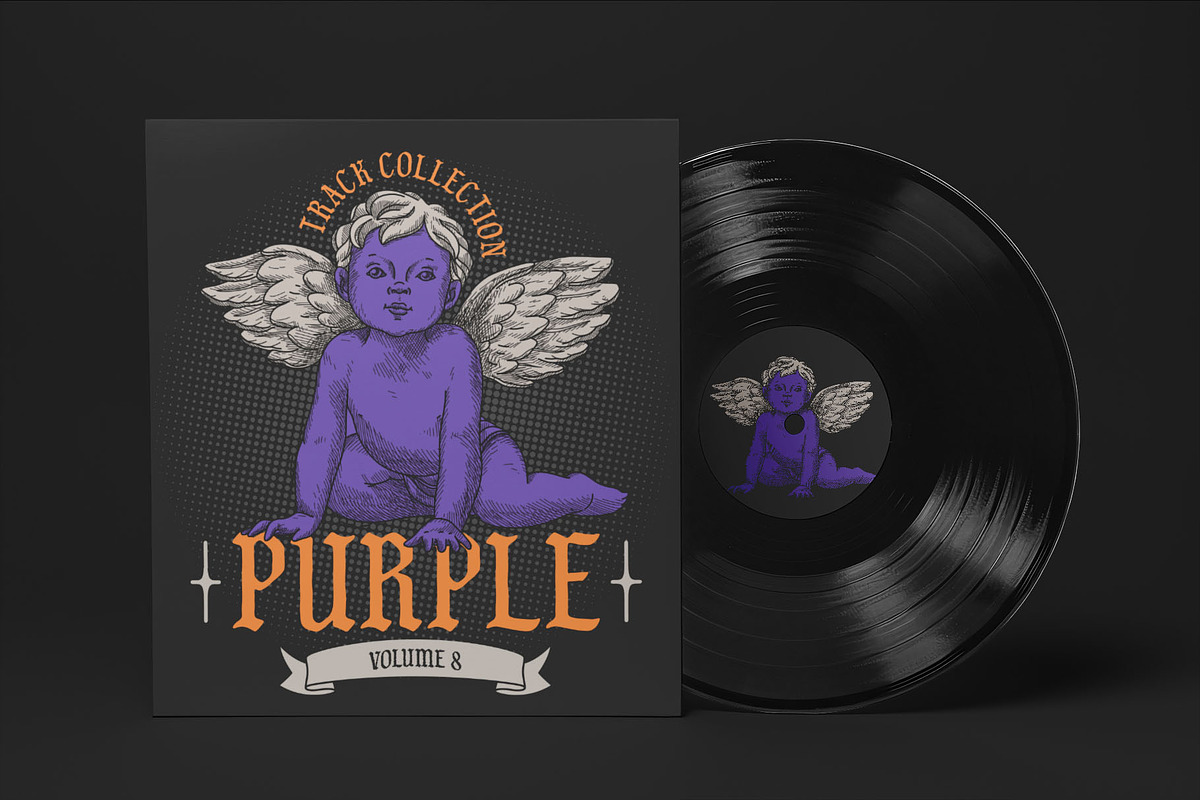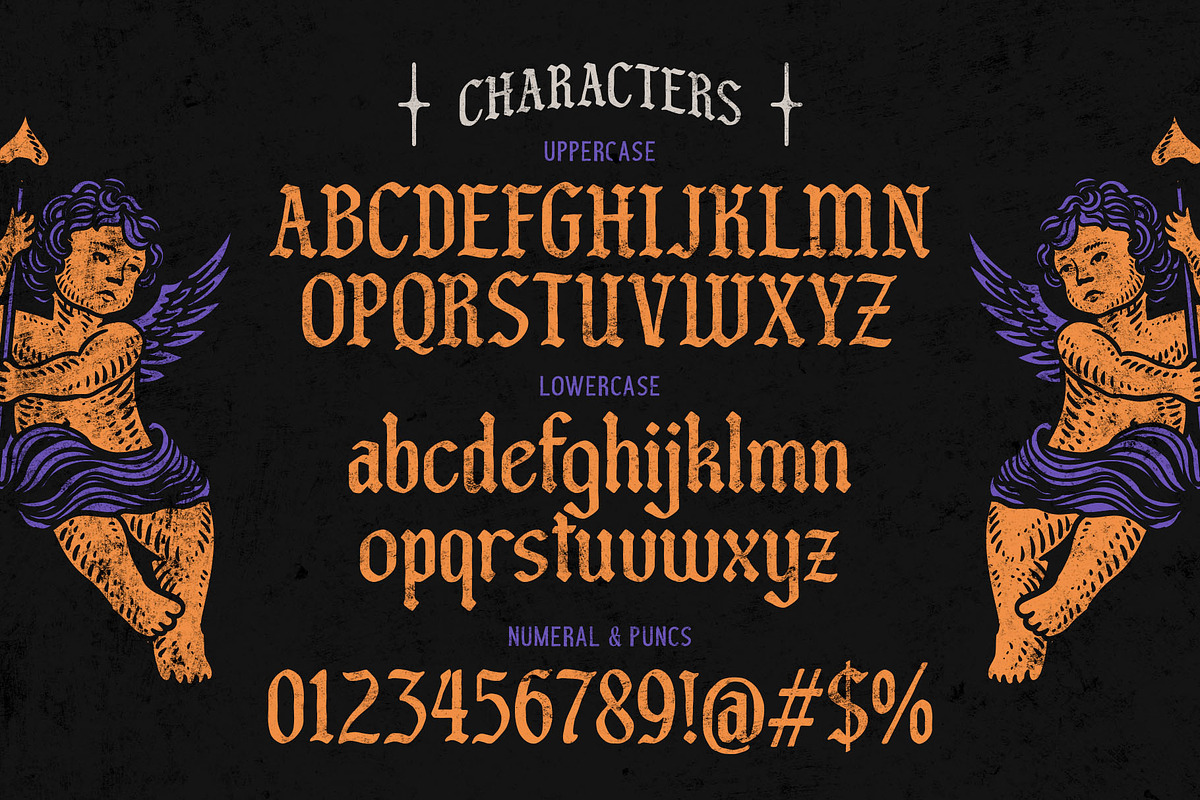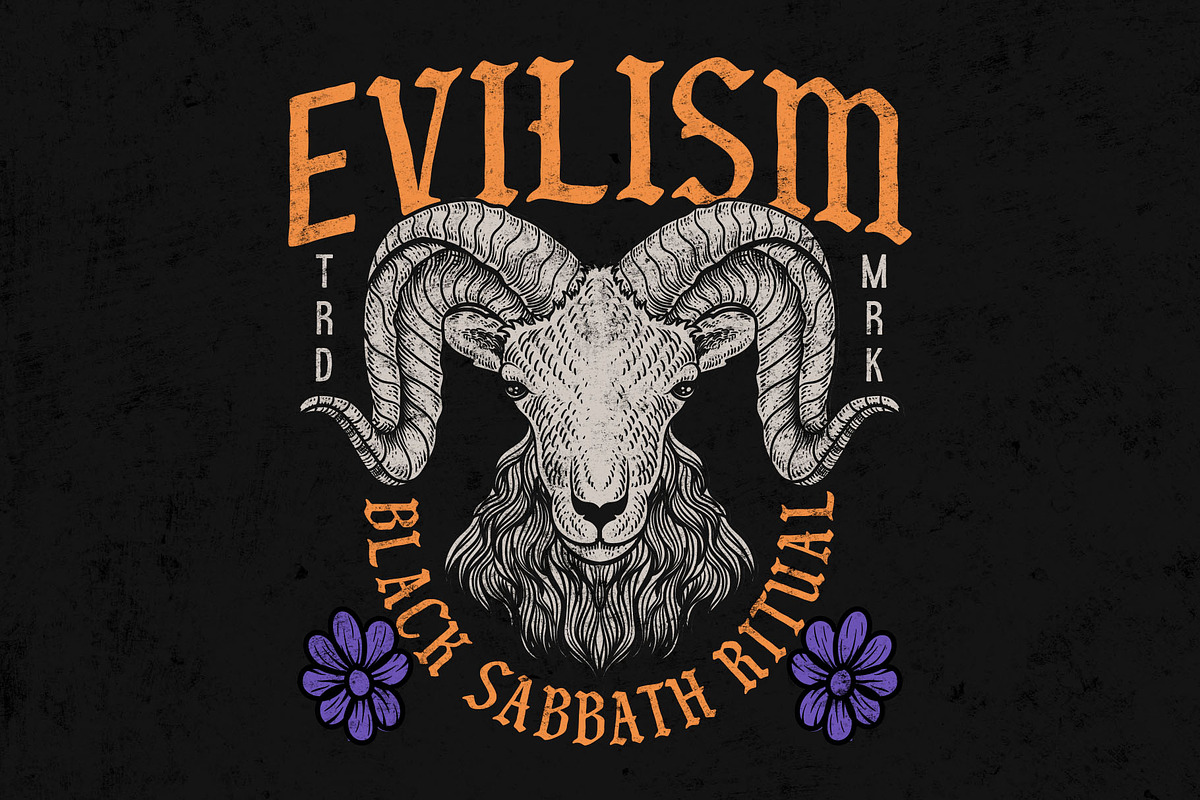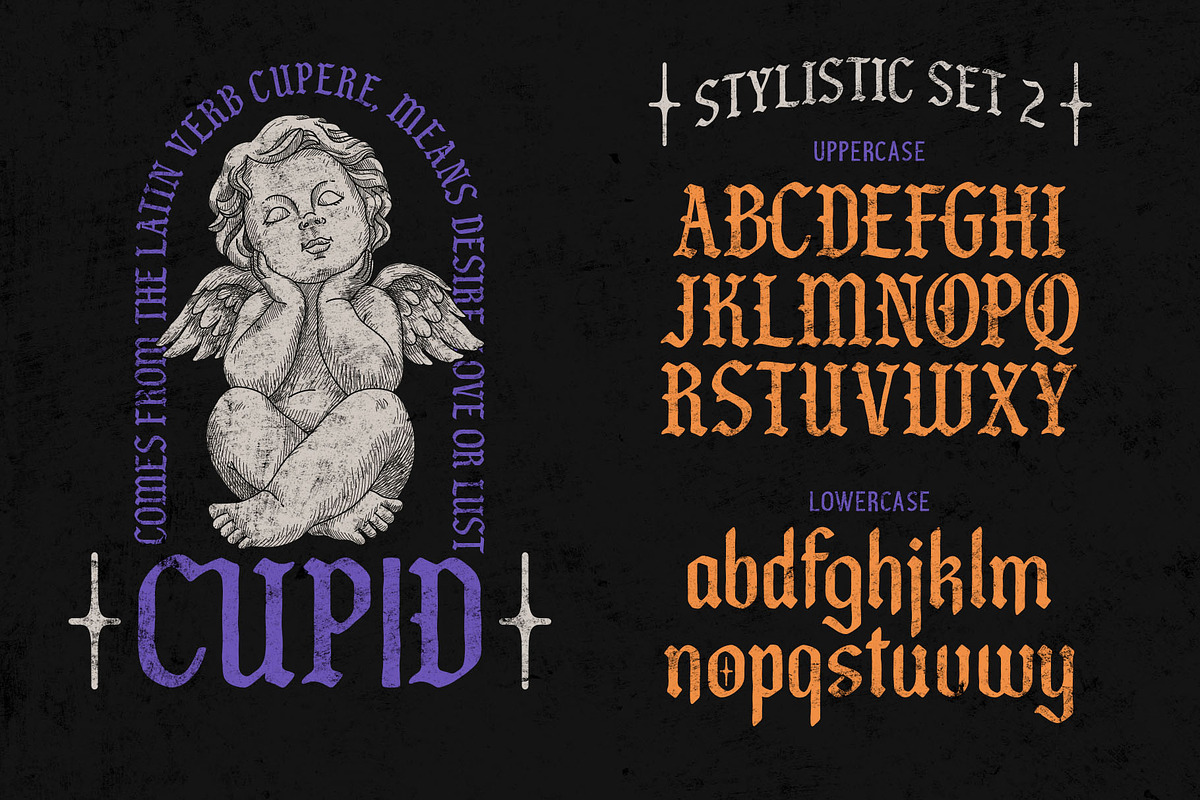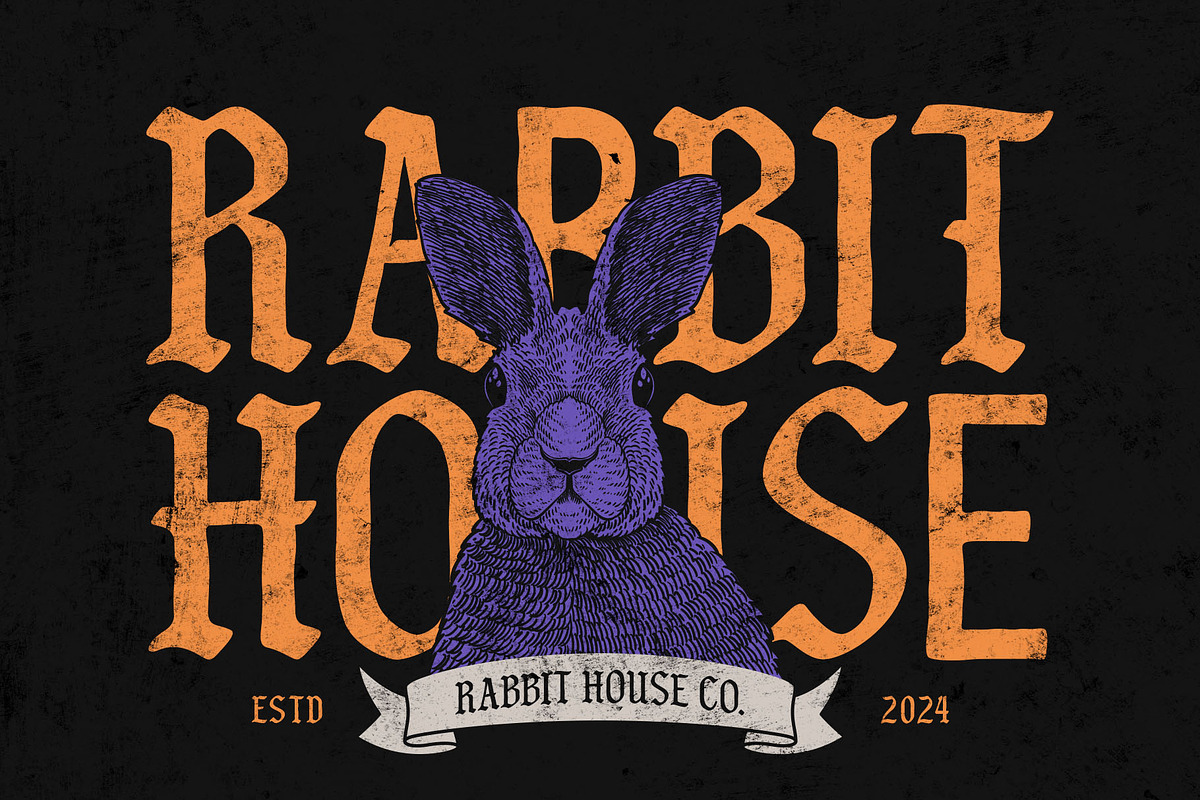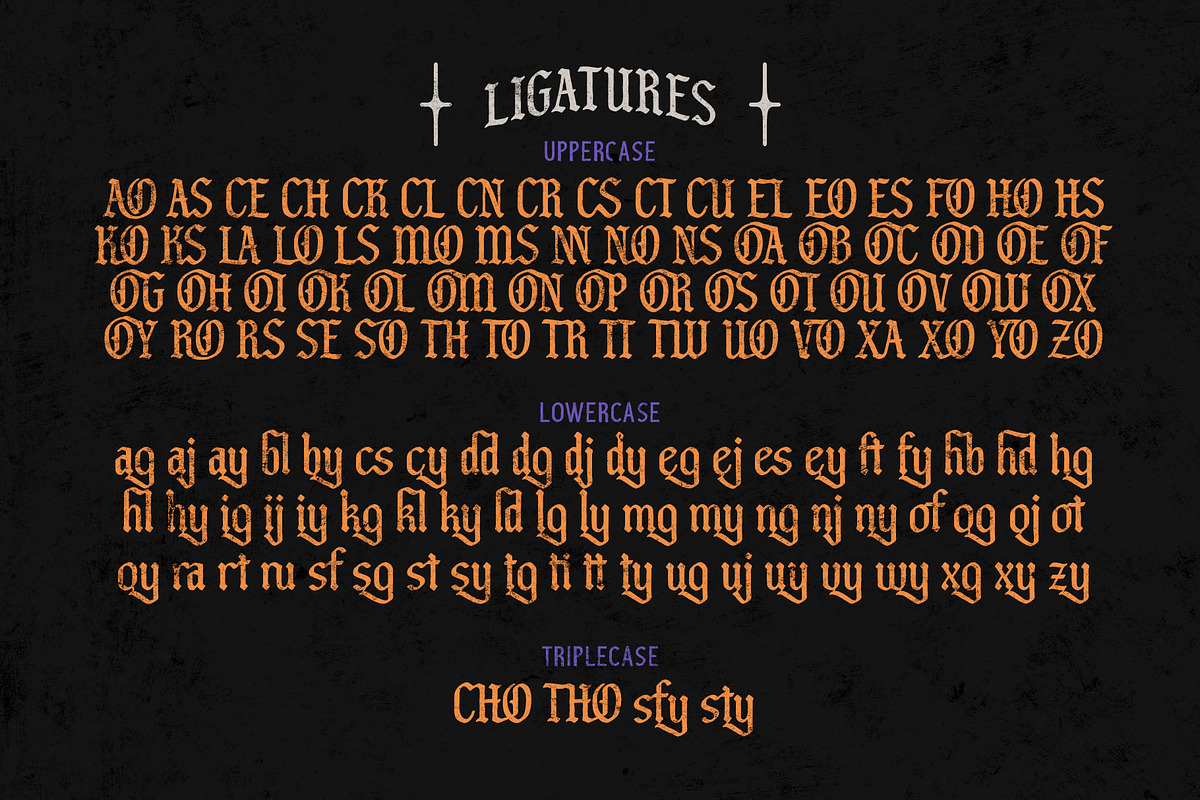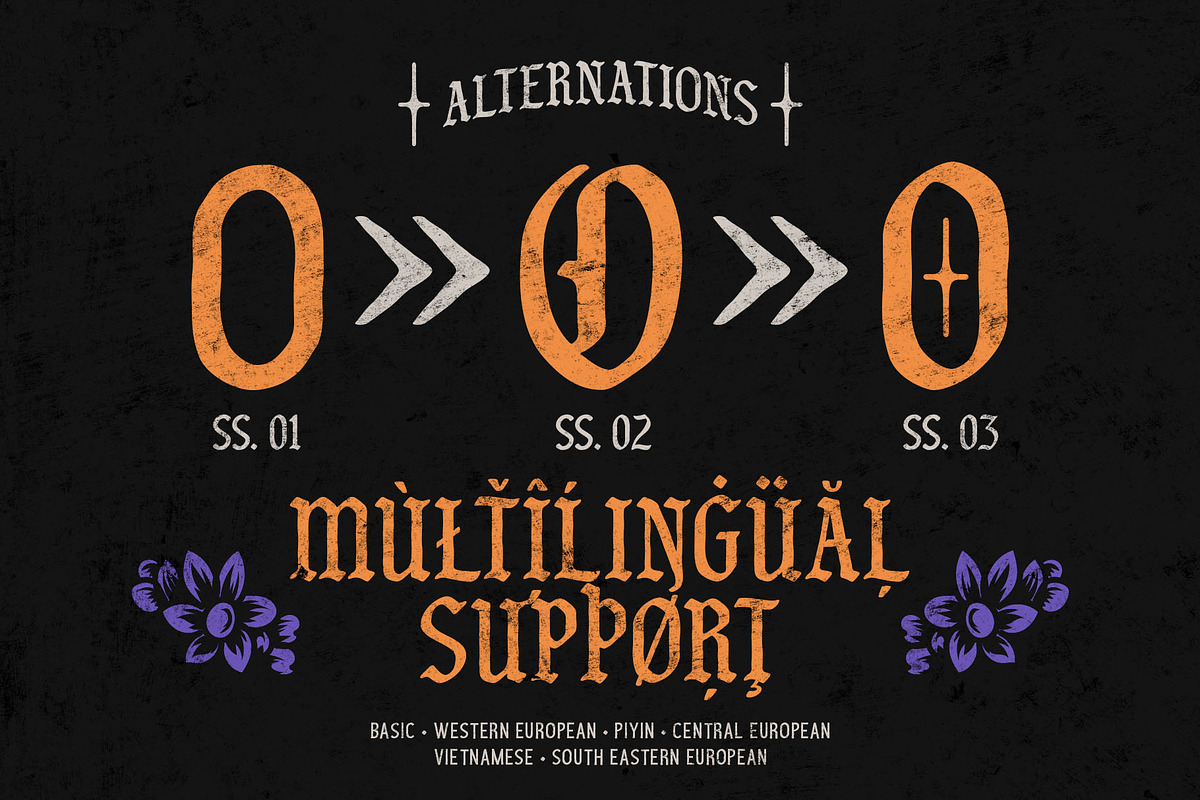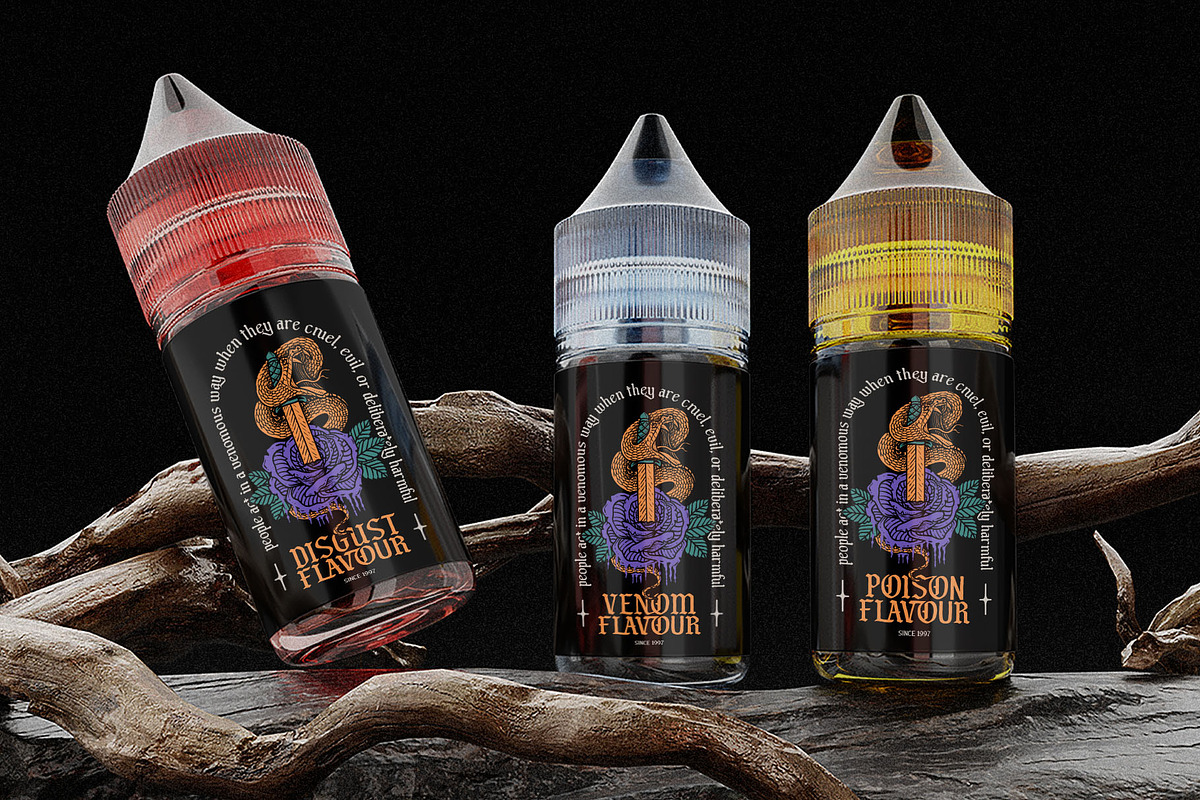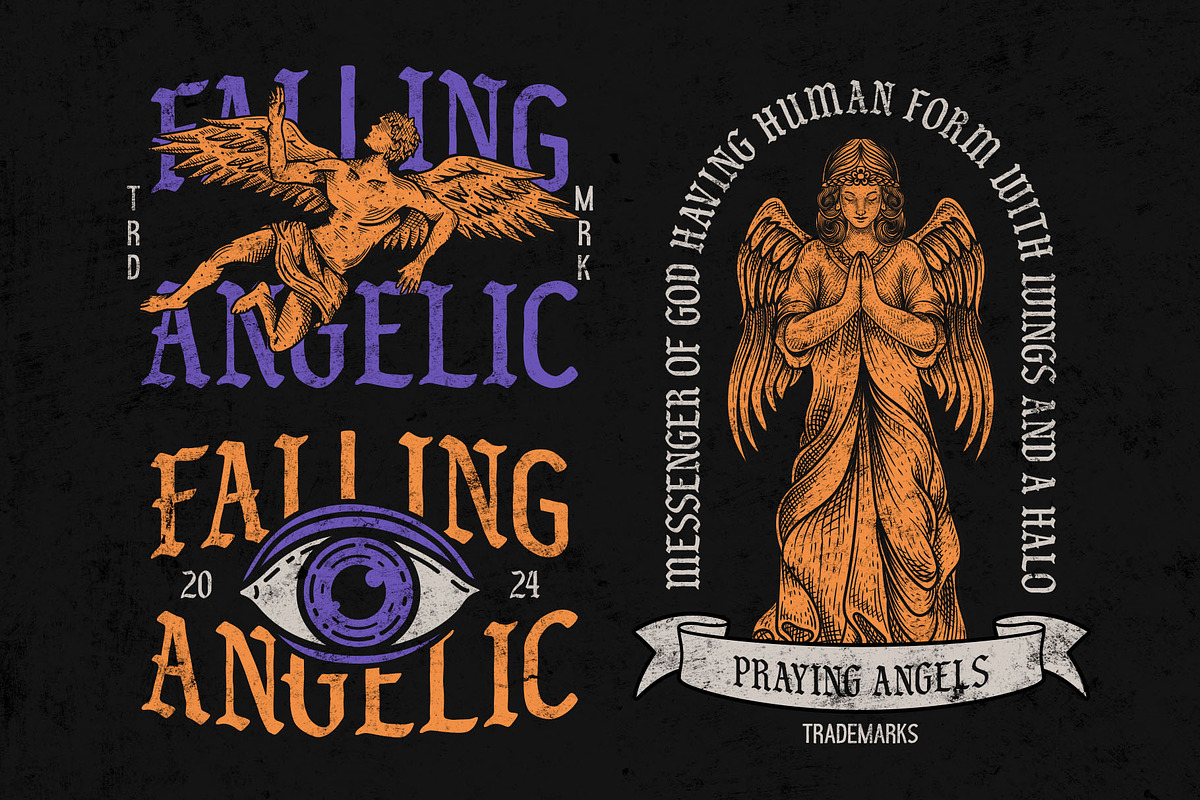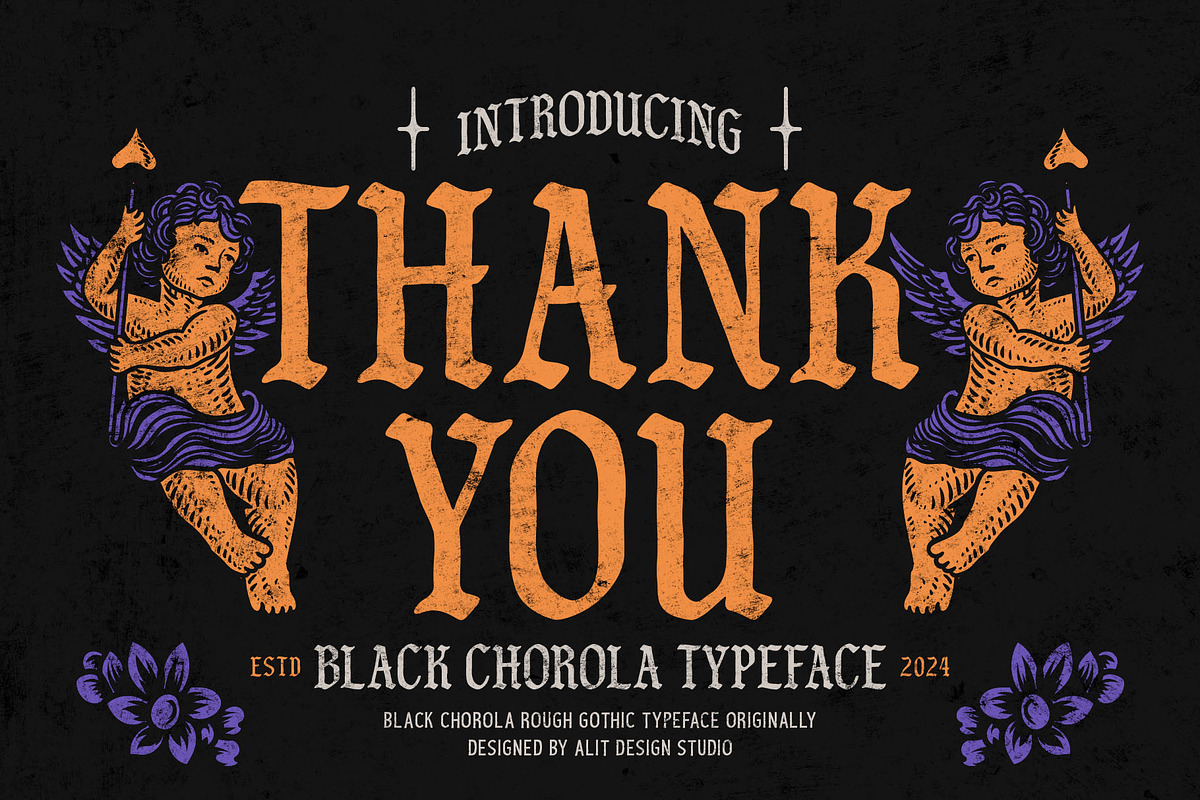
Black Chorola Typeface
Black Chorola Typeface: A Bold Vintage Blackletter with a Rough Edge
Unleash the power of old-world charm with Black Chorola Typeface, a striking blackletter font inspired by vintage design with a raw, textured twist. Perfect for creating bold statements, this font evokes the elegance and grit of historical typography, making it ideal for branding, posters, logos, packaging, or any project that calls for a timeless yet rugged aesthetic.
- 700 Characters: With an expansive character set, Black Chorola gives you the creative freedom to craft any message.
- Swashes & Ligatures: Add flair to your designs with beautifully designed swashes and unique ligatures, enhancing every letter with a touch of sophistication.
- Alternate Characters: Multiple letter variations let you customize each word, ensuring every design stands out.
- Multilingual Support: Featuring extensive language coverage, Black Chorola supports multiple languages, ensuring your message is clear no matter where your audience is.
Whether you're designing for a vintage brand or adding a gothic twist to modern projects, Black Chorola Typeface offers the perfect blend of boldness and intricacy.
This font is not like what the description makes out as raw and textured. There is ZERO texture and non of the rough charm it promises. Furthermore, alit design is the least helpful and most condescending seller. They tried to tell me that the reason why it's not textured it's to prevent errors, but I have plenty of textured fonts, and have never had an error. Disappointing.